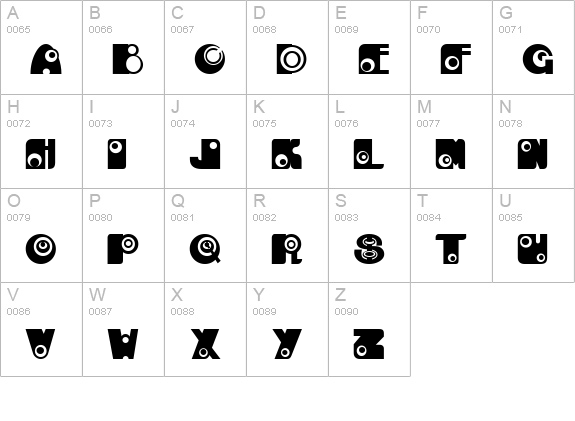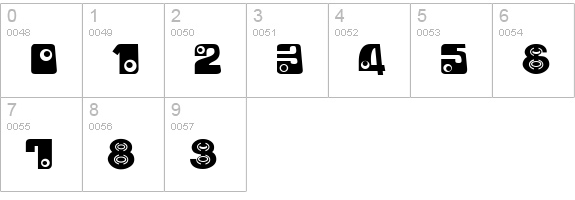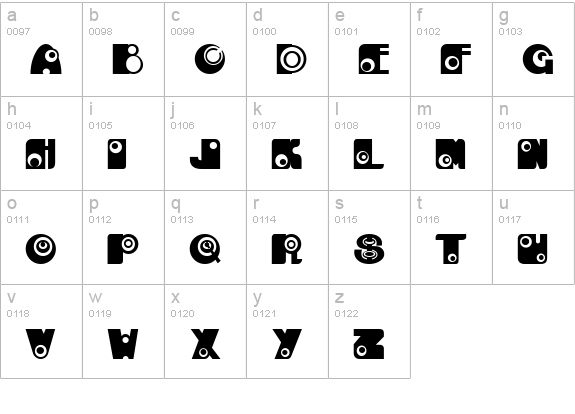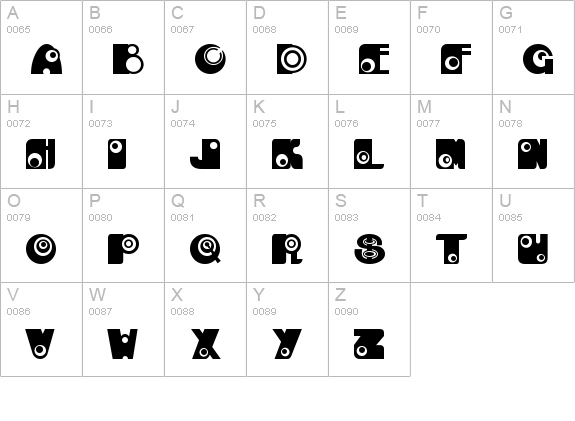
kan E Font Details
Introducing the exquisite and versatile Kan E font - a typeface designed to captivate and inspire. This remarkable font effortlessly blends elegance with modernity, making it the perfect choice for a wide range of creative projects. Kan E font boasts a unique and distinctive style, characterized by its clean lines and sophisticated curves, which lend a sense of sophistication to any design. What sets Kan E font apart is not only its stunning aesthetics but also its incredible accessibility. This font is offered to you completely free of charge, enabling you to bring your artistic vision to life without any constraints. It is our belief that creativity should never be limited, and by providing the Kan E font for free, we hope to empower designers, artists, and enthusiasts alike to explore their boundless imagination. To make this remarkable font even more accessible, we have made it readily available for download at FontsMarket.com. This user-friendly platform allows you to effortlessly acquire the Kan E font, ensuring a seamless and convenient experience. FontsMarket.com is a trusted source for high-quality fonts, and we are proud to showcase Kan E font as part of our extensive collection. Whether you are working on a branding project, creating eye-catching advertisements, or designing stunning invitations, the Kan E font will undoubtedly elevate your designs to new heights. Its versatility knows no bounds, effortlessly adapting to any design concept or theme. With its free availability and unmatched aesthetics, the Kan E font is a must-have for any design enthusiast. Embrace the beauty and charm of the Kan E font today, and unleash your creative potential. Download it for free at FontsMarket.com and experience the seamless blend of elegance and modernity that this remarkable font offers. Let your designs flourish with the timeless allure of the Kan E font and make a lasting impression on your audience.